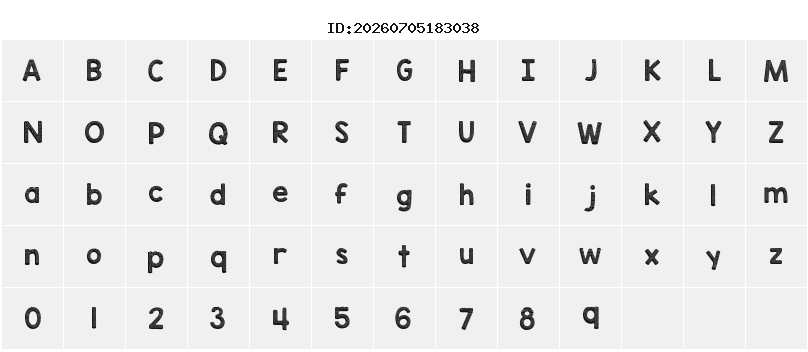
Doctor Garcia Preview
• Font Name: Doctor Garcia
• Full Font Name: Doctor Garcia
About Doctor Garcia.ttf
Doctor Garcia.ttf is a modern, elegant sans-serif font designed for ultimate readability and visual harmony. Perfect for branding, headlines, web design, and print materials.